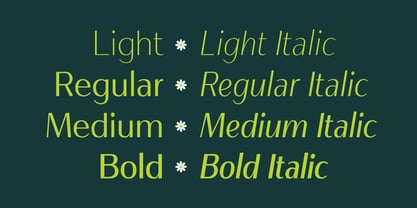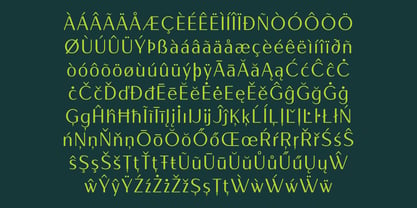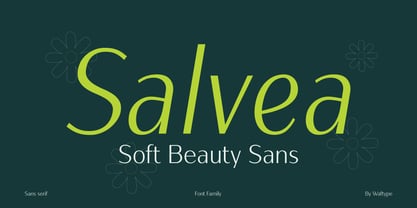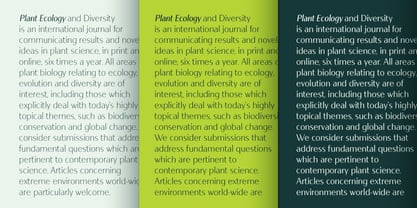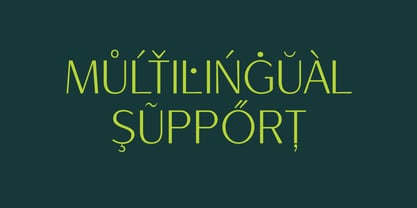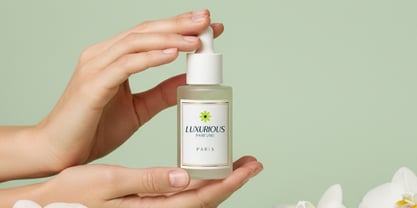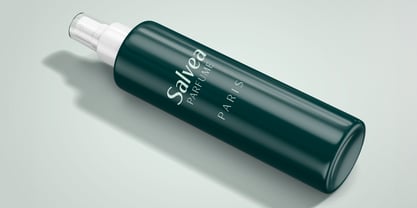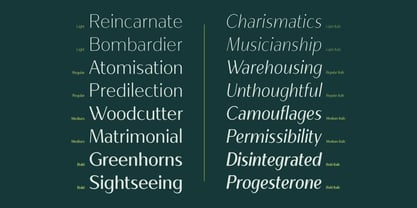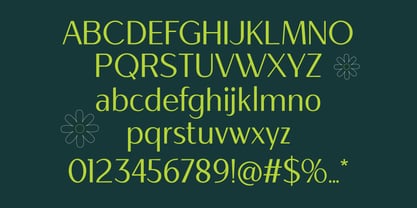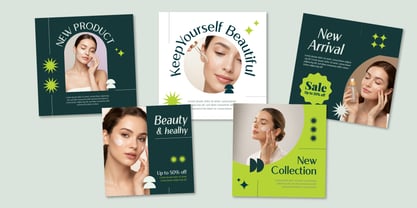
Salvea
Salvea is a soft, clean sans serif positioned for botanical, cosmetic, and wellness branding. Inspired by natural floral forms and modern cosmetic design, it delivers a calm, refined, and trustworthy look with a sense of understated luxury. The family includes 8 styles (4 upright & 4 italic) with 533+ glyphs and small caps, ideal for packaging, headlines, and elegant beauty-driven identities.